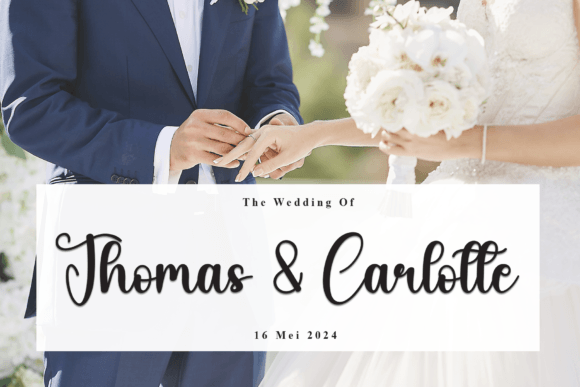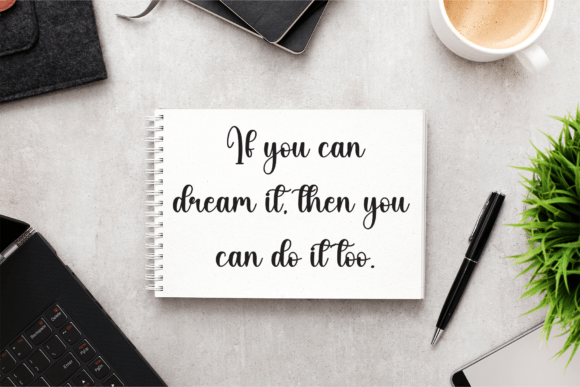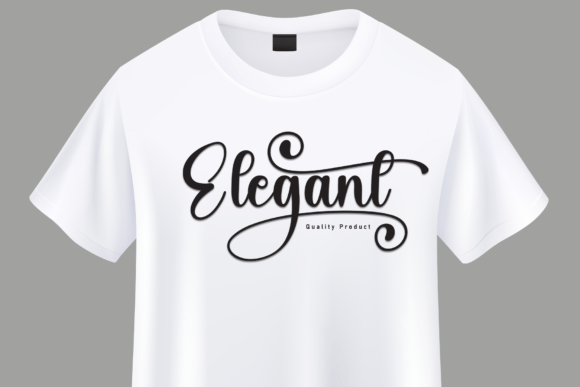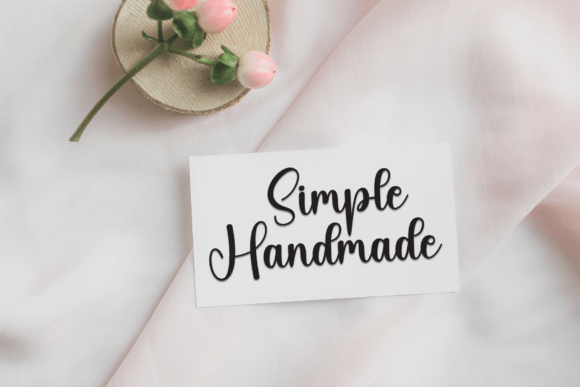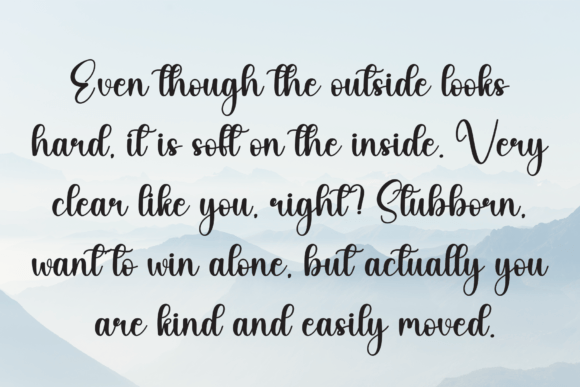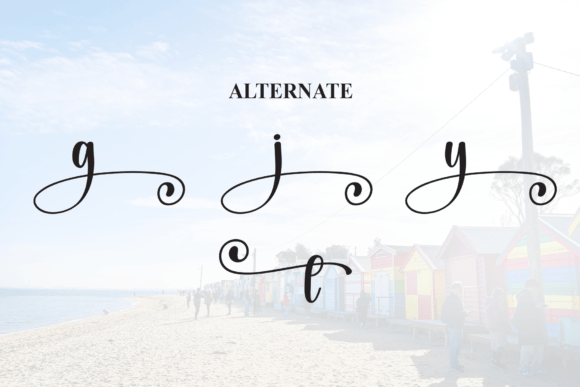
Introducing Brighton Font: Elevate Your Designs with Elegance and Style
Brighton Font is a stunning script font that exudes elegance and sophistication, perfect for designers and crafters looking to add a touch of refinement to their projects. With its beautiful, flowing lines and intricate details, Brighton Font is ideal for creating stunning wedding invitations, thank you cards, quotes, greeting cards, logos, business cards, and more.
A Perfect Choice for Wedding and Event Stationery
When it comes to planning a wedding or special event, the stationery sets the tone for the entire celebration. Brighton Font is specifically designed to make your wedding invitations, save-the-dates, and thank you cards stand out. Its classic, cursive style and elegant flair make it perfect for formal and semi-formal events. Whether you’re a designer or a DIY bride, Brighton Font will help you create beautiful, professional-looking stationery that will leave a lasting impression.
Brighton Font is not just limited to wedding stationery; it’s incredibly versatile and can be used for a wide range of design projects. From logo designs and business cards to quotes, greeting cards, and social media graphics, Brighton Font adds a touch of elegance and sophistication to any design. Its handwritten feel makes it perfect for creating personalized and unique designs that stand out from the crowd.
Key Features of Brighton Font
- Stylish and Elegant: Brighton Font boasts a beautiful, cursive script style that’s both stylish and elegant.
- Handwritten Touch: Its handwritten feel makes it perfect for designs that require a personal touch.
- Highly Versatile: Use it for wedding stationery, logos, business cards, quotes, and more.
- Easy to Read: Despite its elegant style, Brighton Font is easy to read, making it perfect for body text and captions.
- Scalable: Brighton Font is designed to look great at any size, from small captions to large headings.
Tips for Using Brighton Font
To get the most out of Brighton Font, here are a few tips:
- Pair it with a Simple Font: For maximum impact, pair Brighton Font with a simple, sans-serif font for body text.
- Use it for Headings: Brighton Font is perfect for headings and titles, so use it to add a touch of elegance to your designs.
- Experiment with Colors: Brighton Font looks great in a variety of colors, so don’t be afraid to experiment and find the perfect shade for your design.
- Add a Personal Touch: Use Brighton Font to add a personal touch to your designs, whether it’s a handwritten quote or a custom logo.
Who Can Benefit from Brighton Font?
Brighton Font is perfect for:
- Graphic Designers: Add a touch of elegance to your designs with Brighton Font.
- Wedding Planners: Create stunning wedding stationery and event materials with Brighton Font.
- Crafters: Use Brighton Font to create beautiful, handmade cards and gifts.
- Small Business Owners: Add a touch of sophistication to your branding and marketing materials with Brighton Font.
Brighton Font is a beautiful, elegant script font that’s perfect for designers and crafters looking to add a touch of refinement to their projects. With its highly versatile design and easy-to-read style, Brighton Font is ideal for a wide range of design projects, from wedding stationery to logos and business cards. So why wait? Download Brighton Font today and elevate your designs with elegance and style!